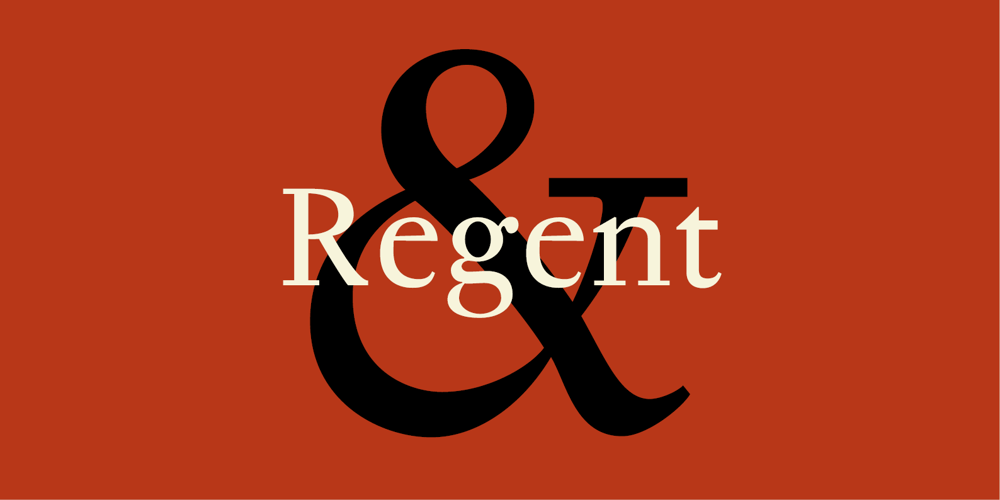
Regent Pro
Regent Pro font
Regent Pro Font Family was designed by František Štorm and published by Storm Type Foundry. Regent Pro contains 4 styles and family package options. This modernized rustic Baroque Roman face paraphrases freely its model from the first half of the 18th century. The shape of the letters has been cleared from all unevenness and softness, but has retained its lively expression. It is deliberately rather cooler than the reverently digitized Baroque Roman type faces, since it was necessary to adjust it with regard to the visual experience of the contemporary reader. In addition, it has bold designs and aligning figures, which also considerably extends the range of its application. It is an entirely reliable text type face for the most demanding extensive works. Thanks to its calm expression and excellent legibility it is widely used when printing series of professional literature.